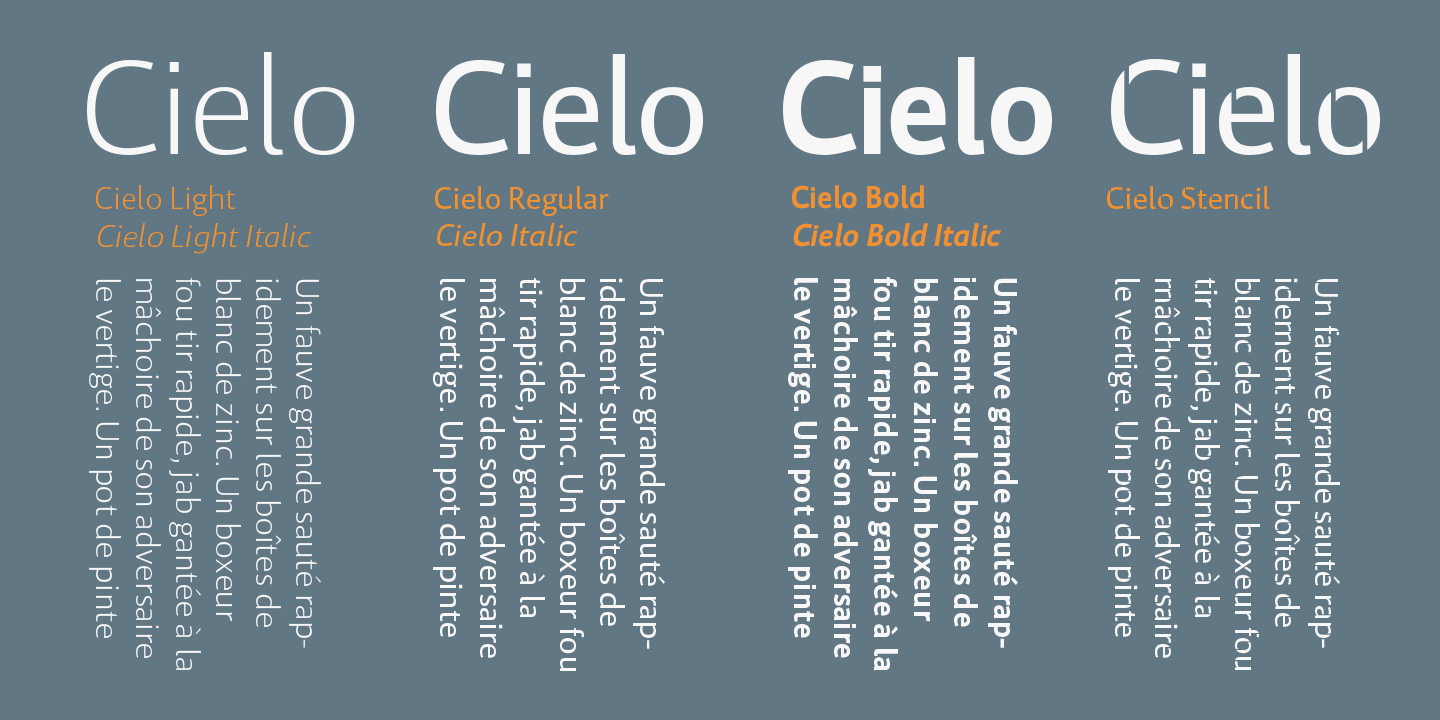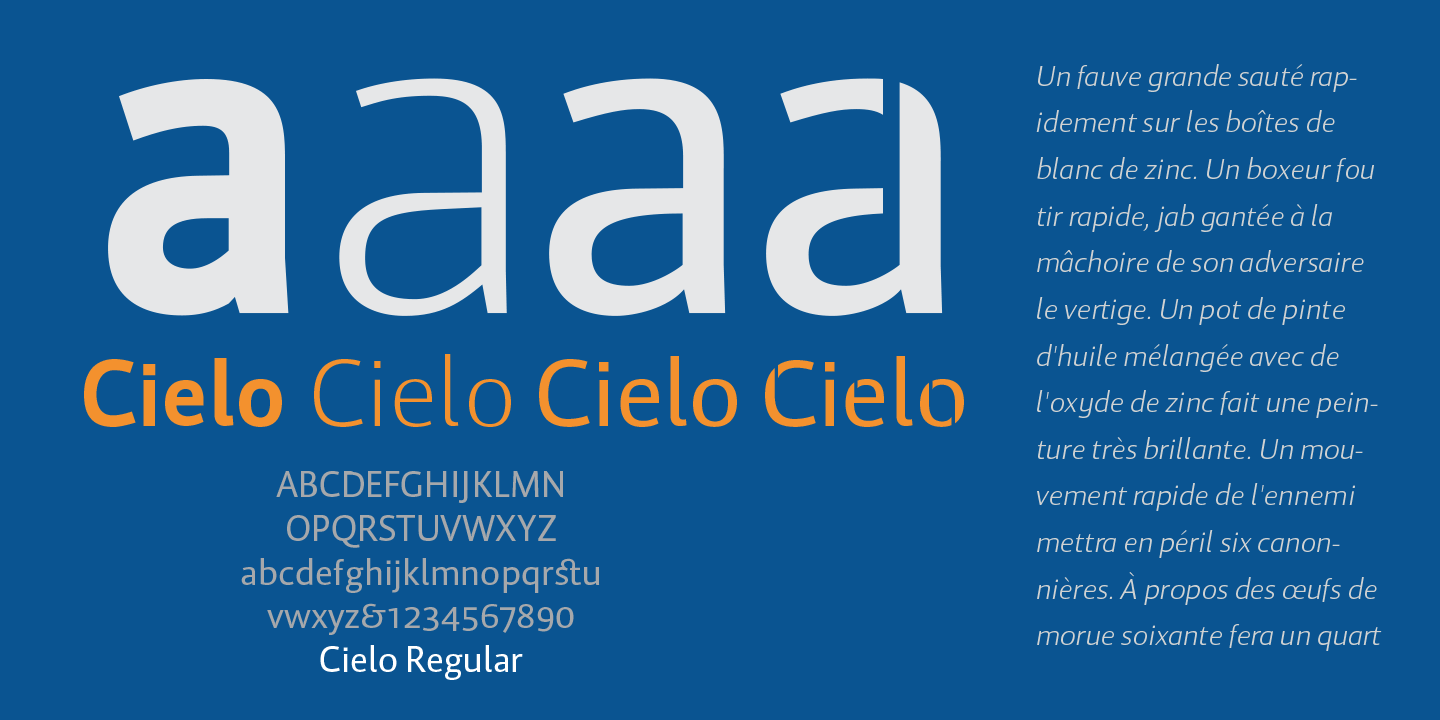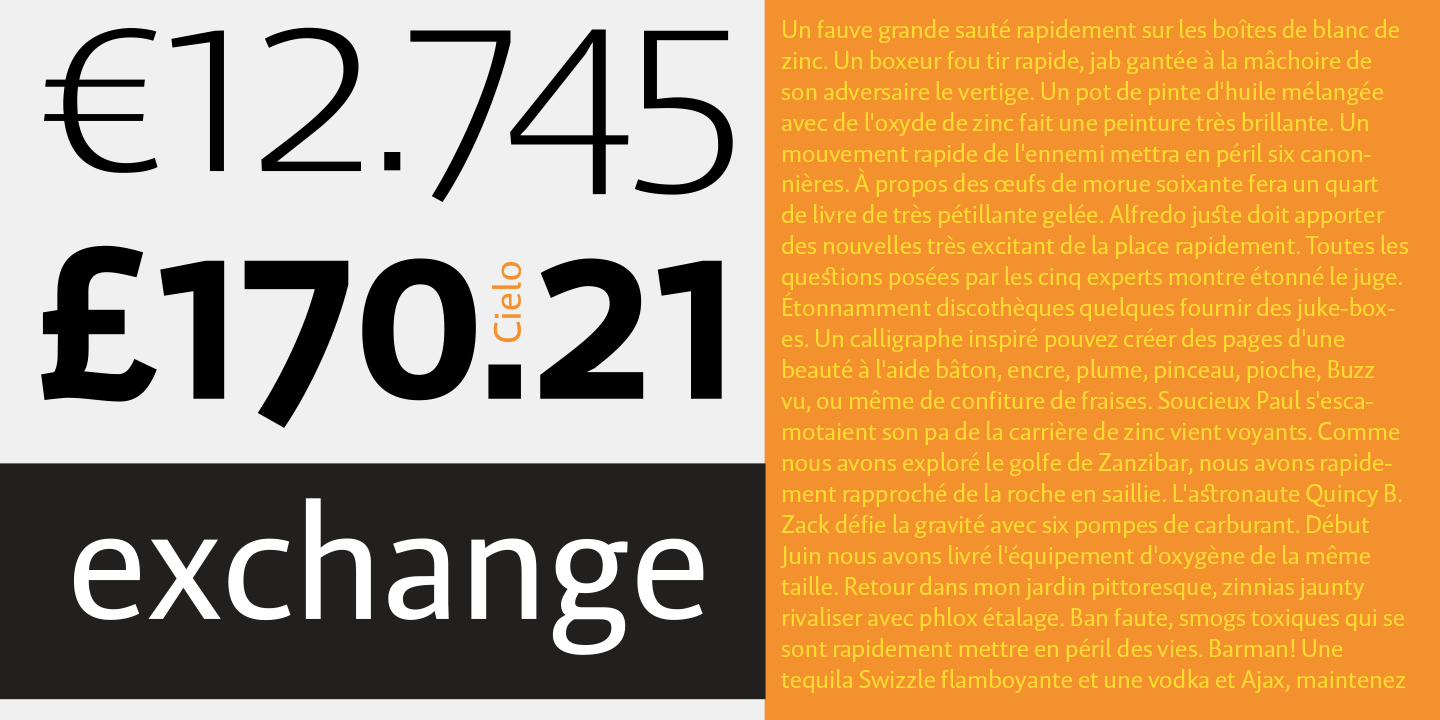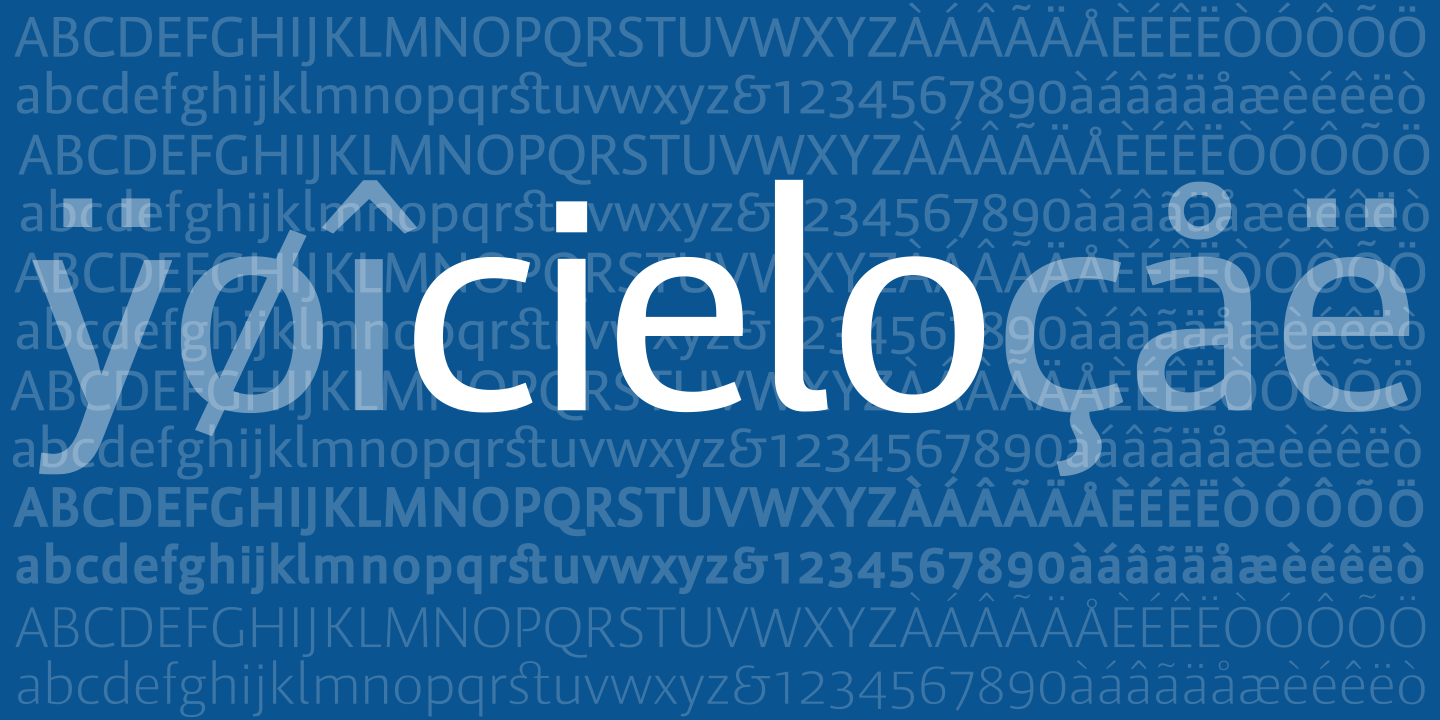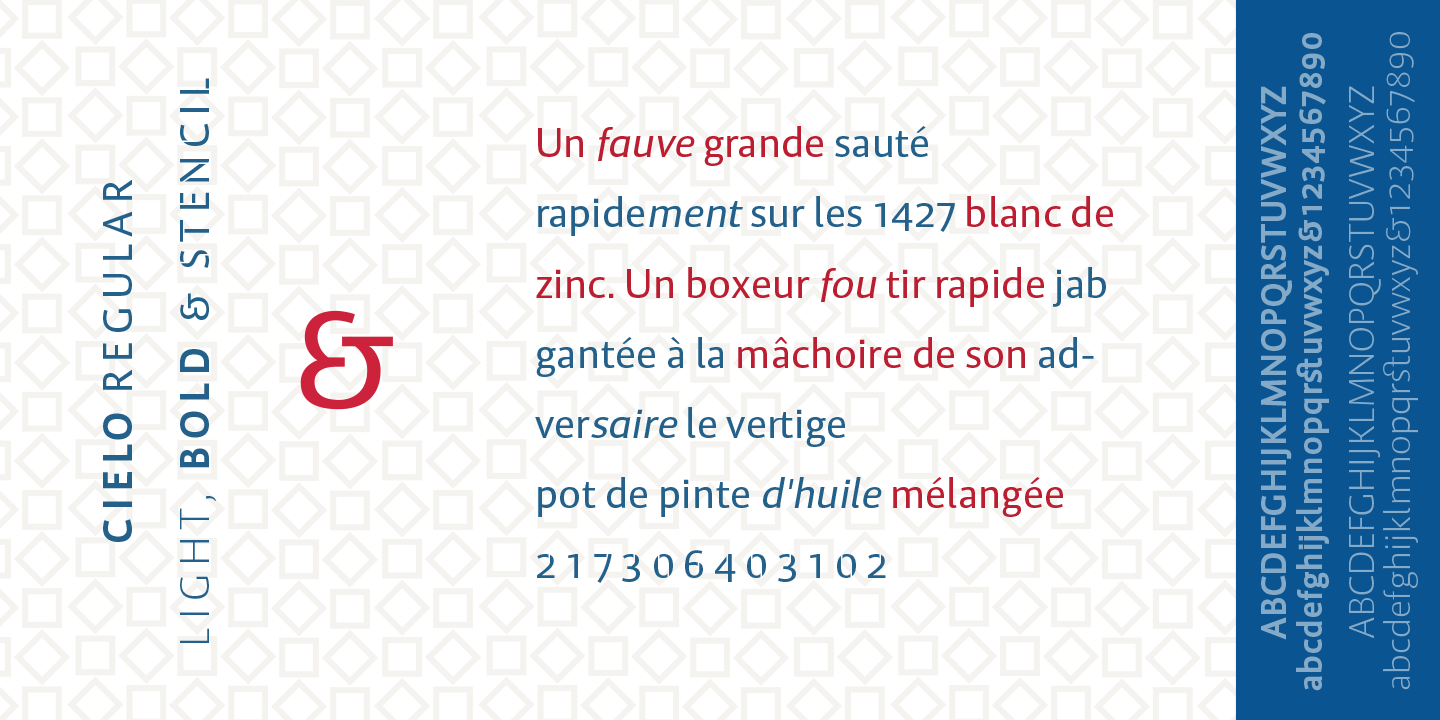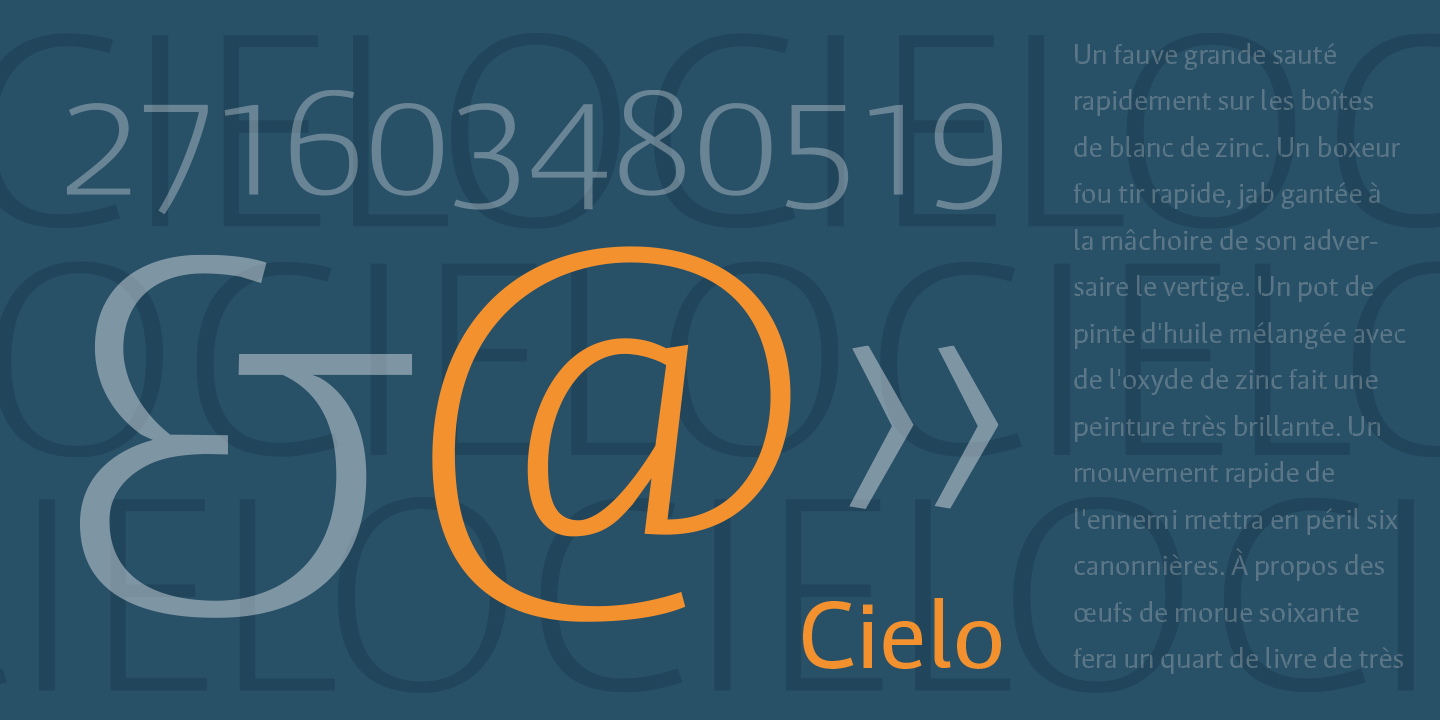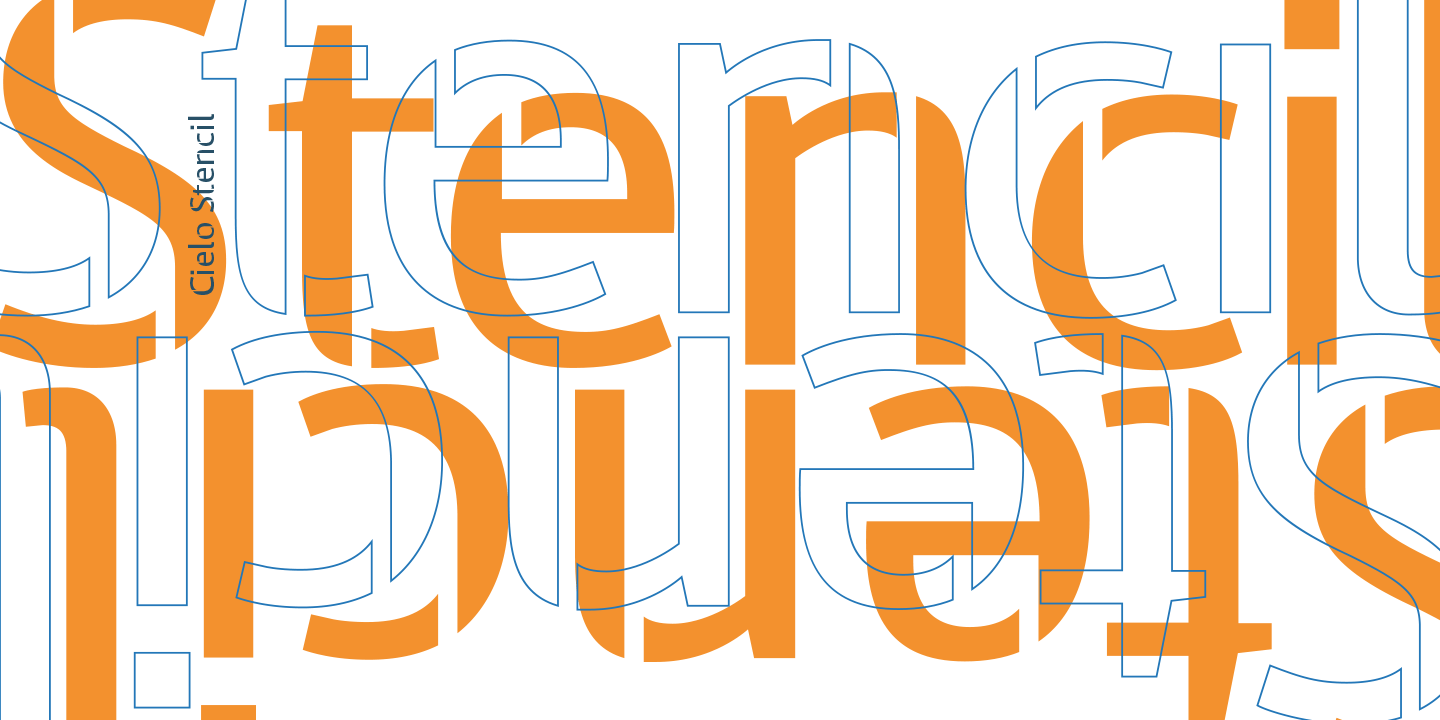
Cielo
Font Family by Wilton Foundry
Cielo font family consists of Cielo Light, Cielo Light Italic, Cielo Regular, Cielo Italic, Cielo Bold, Cielo Bold Italic, and Cielo Stencil (Regular weight) Cielo is a versatile contemporary typeface family that will serve you well in many design situations like advertising, corporate communications, etc. Buying all seven weights make is excellent value for money!